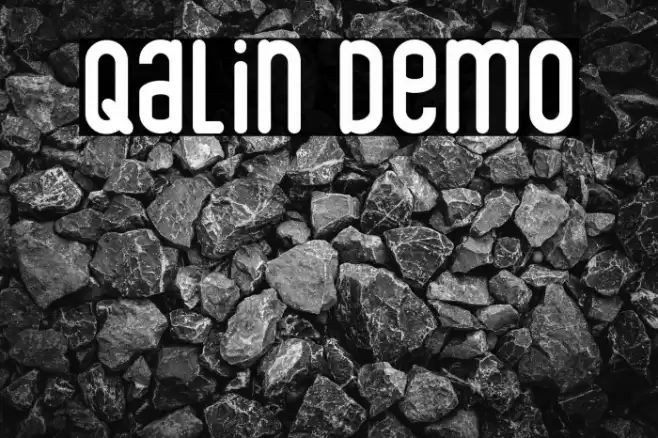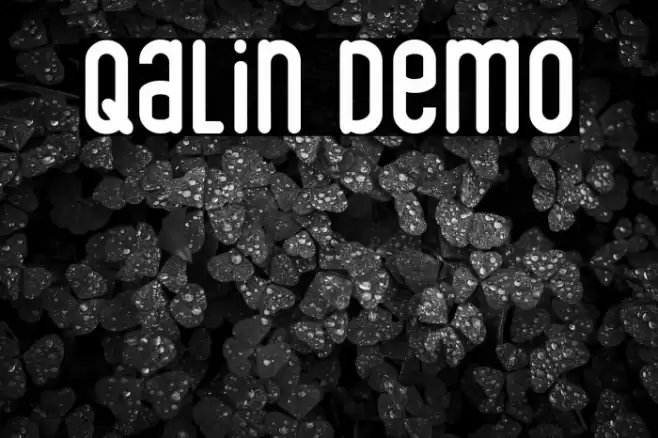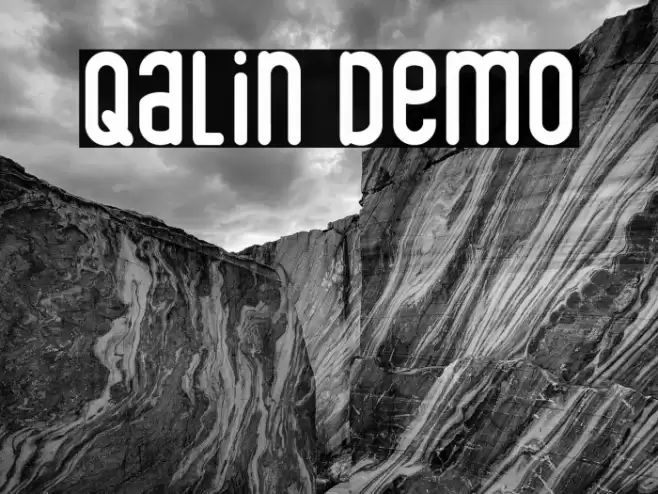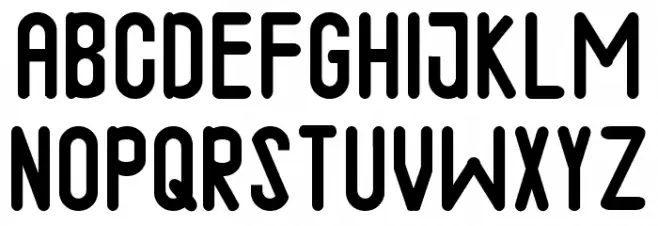
Qalin Demo Font
Qalin Demo Description
This font features a bold and rounded style with a modern and playful aesthetic. The characters are uniformly thick, providing a consistent and cohesive look across all letters and numbers. The rounded edges give it a friendly and approachable feel, making it suitable for a variety of creative projects. The uppercase and lowercase letters maintain a similar width, ensuring readability and balance. The numbers and special characters are designed to match the overall style, contributing to a harmonious appearance.
A bold, rounded font with a modern and playful style from Regular fonts.
- Proposed Projects: Ideal for branding, children's books, playful posters, and modern web design.